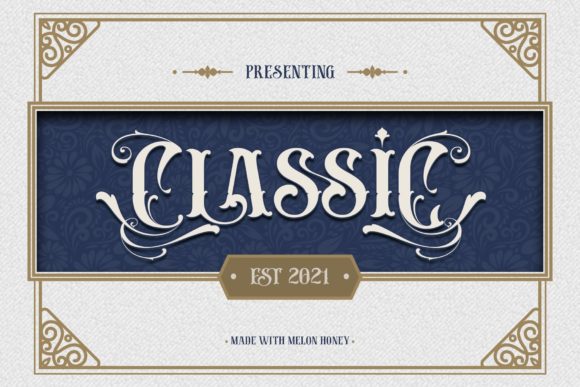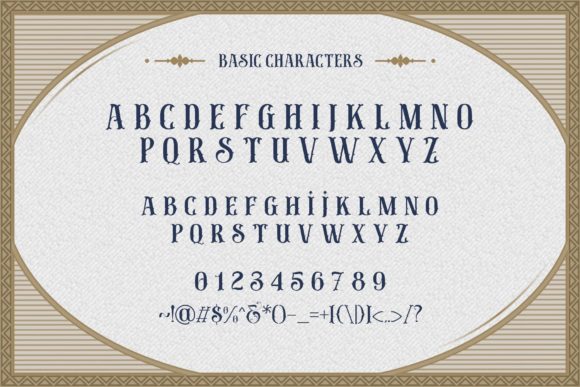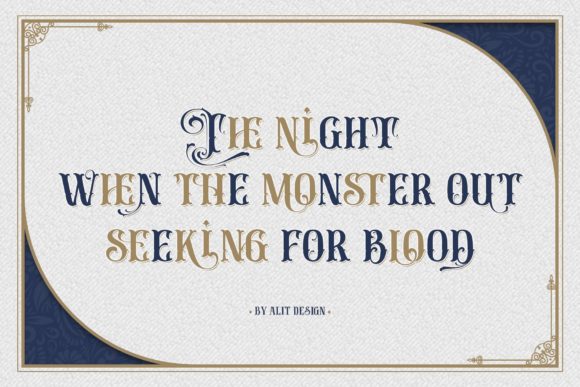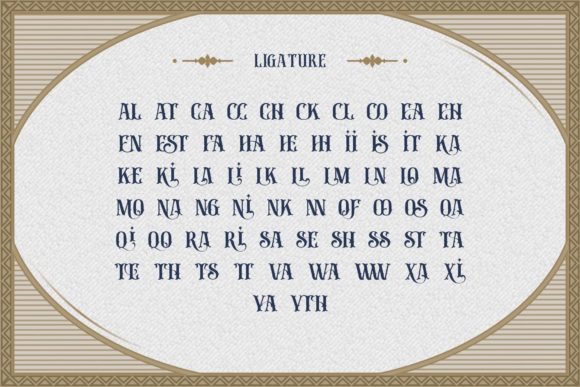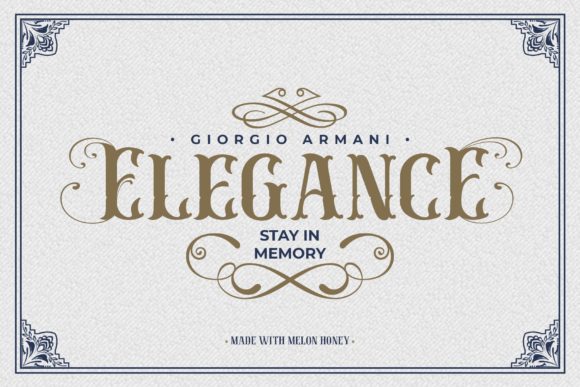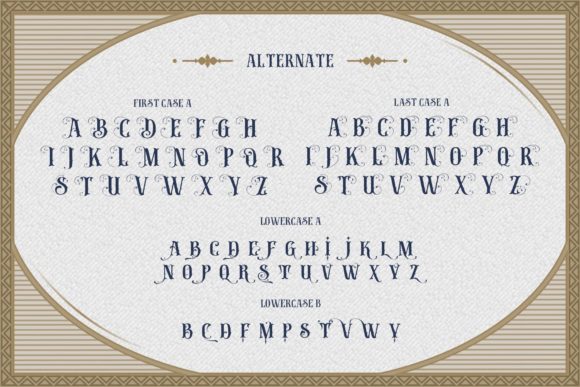
Introduction to Melon Honey Font Font
Fonts play a crucial role in design, and the Melon Honey Font font is a typeface that brings both character and versatility to any project. Whether you’re working on a branding project, a website, or a print design, the Melon Honey Font font offers a unique style that can elevate your work.
Melon Honey is a distinct and highly detailed blackletter font.
This font is PUA encoded which means you can access all of the glyphs and swashes with ease Add it confidently to your favorite creations and let yourself be amazed by the outcome generated.
Key Features of Melon Honey Font Font
Why Choose Melon Honey Font Font?
The Melon Honey Font font is more than just a typeface – it’s a design tool that helps you communicate your message with style and clarity. Its unique character set and versatile design make it suitable for a wide range of applications, from elegant invitations to bold headlines.
With its carefully crafted letterforms and balanced proportions, the Melon Honey Font font ensures readability and visual appeal across all mediums.
What makes Melon Honey Font font special?
The Melon Honey Font font stands out with its unique design, exceptional readability, and versatility across various design applications.